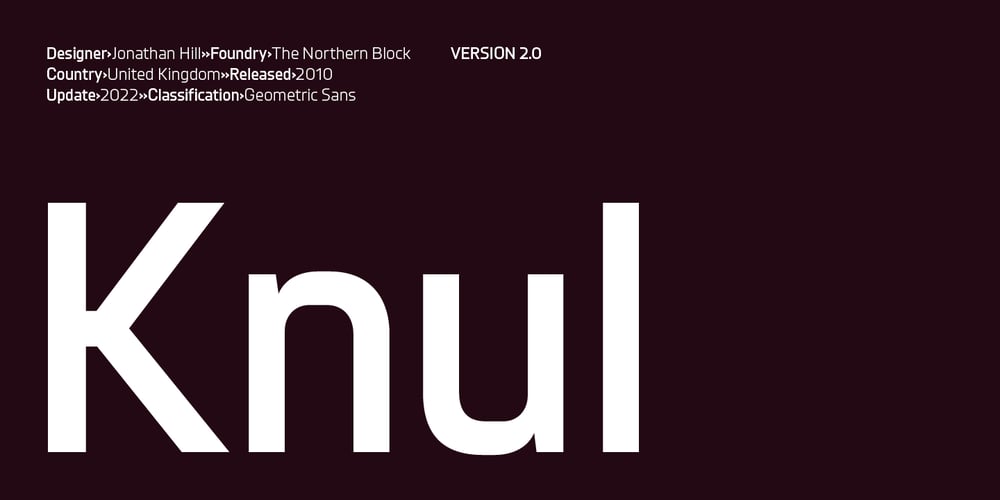
Knul Font Family was designed by Jonathan Hill and published by The Northern Block. Knul contains 12 styles and family package options. Knul is an elegant modern typeface with a subtle mono-line appearance. Balanced engineered geometry with delicate hand touches allows for practical typesetting without complications. Knuls’ mechanical simplicity is best suited to identity, editorial, advertising and software applications.Details include six weights with italics and over 600 characters per style. Opentype features consist of six variations of numerals, including inferiors, superiors, fractions, lining and tabular. Language support covers Western, South, Central Europe and Cyrillic—Remastered to version 2.0 for improved OpenType features and usability.